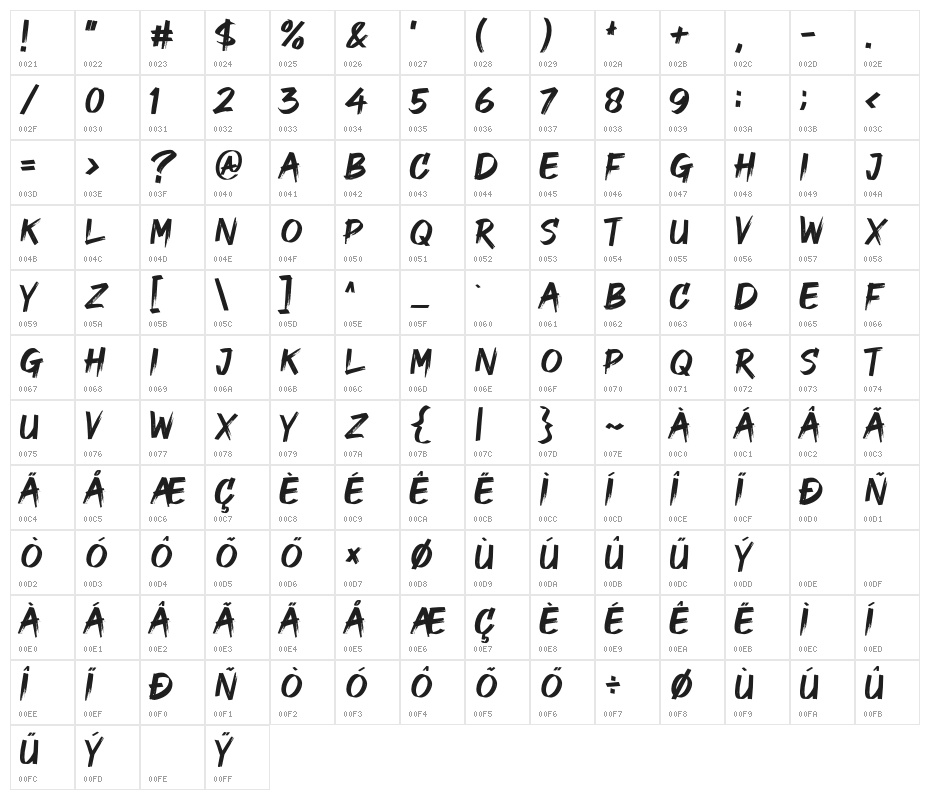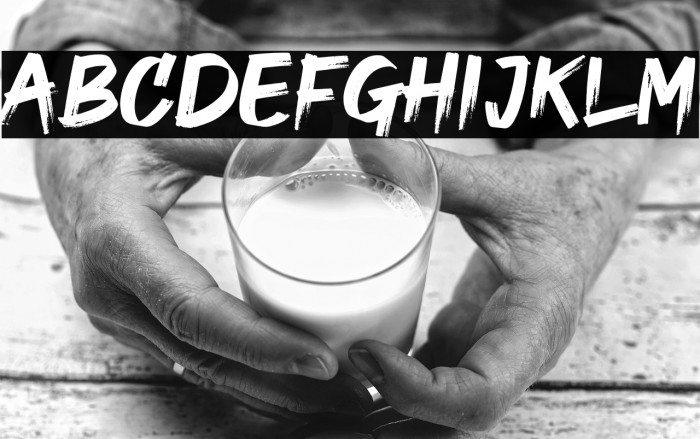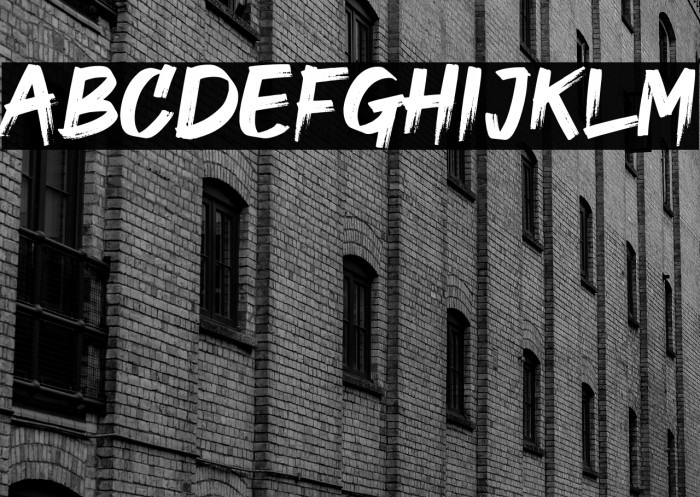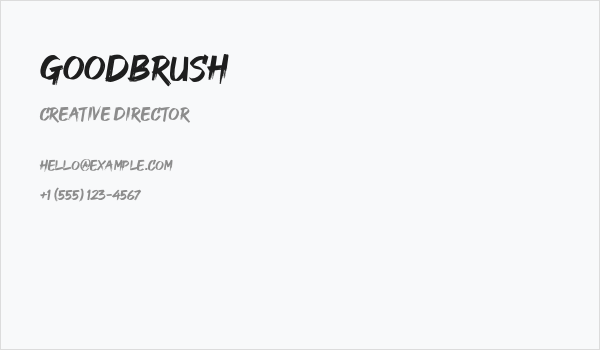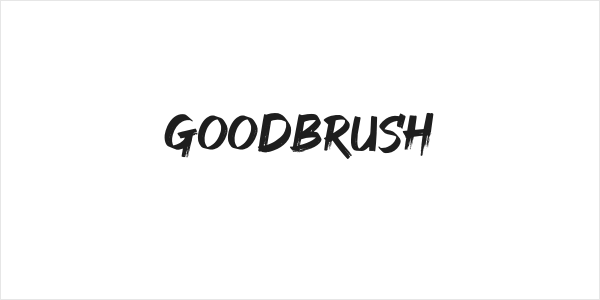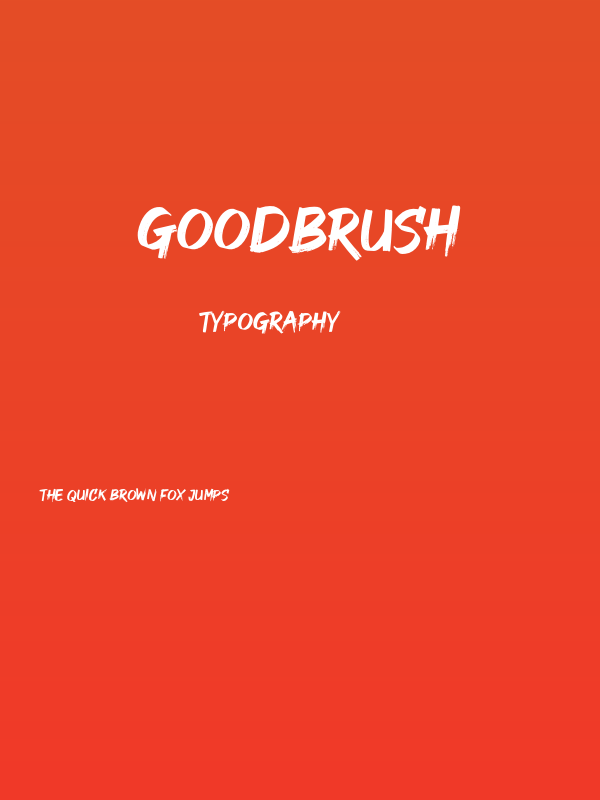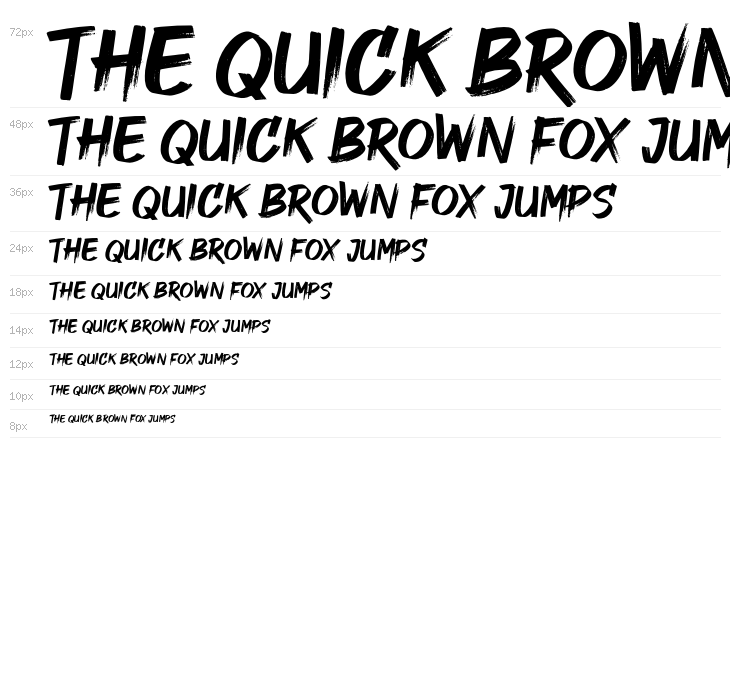
GOODBRUSH Font
GOODBRUSH Description
This font features a bold and dynamic brush style, characterized by its energetic strokes and rough edges. The letters exhibit a hand-painted appearance, giving a sense of movement and spontaneity. The uppercase and lowercase letters maintain a consistent style, with each character displaying unique brush textures that add depth and personality. The numbers and special characters follow the same aesthetic, ensuring uniformity across all glyphs. This font is ideal for projects that require a bold and artistic touch, such as posters, branding, and creative designs.
| Overall Style | Modern, Artistic |
| Proposed Projects | Perfect for posters, branding, artistic designs, and any project needing a bold, creative touch. |